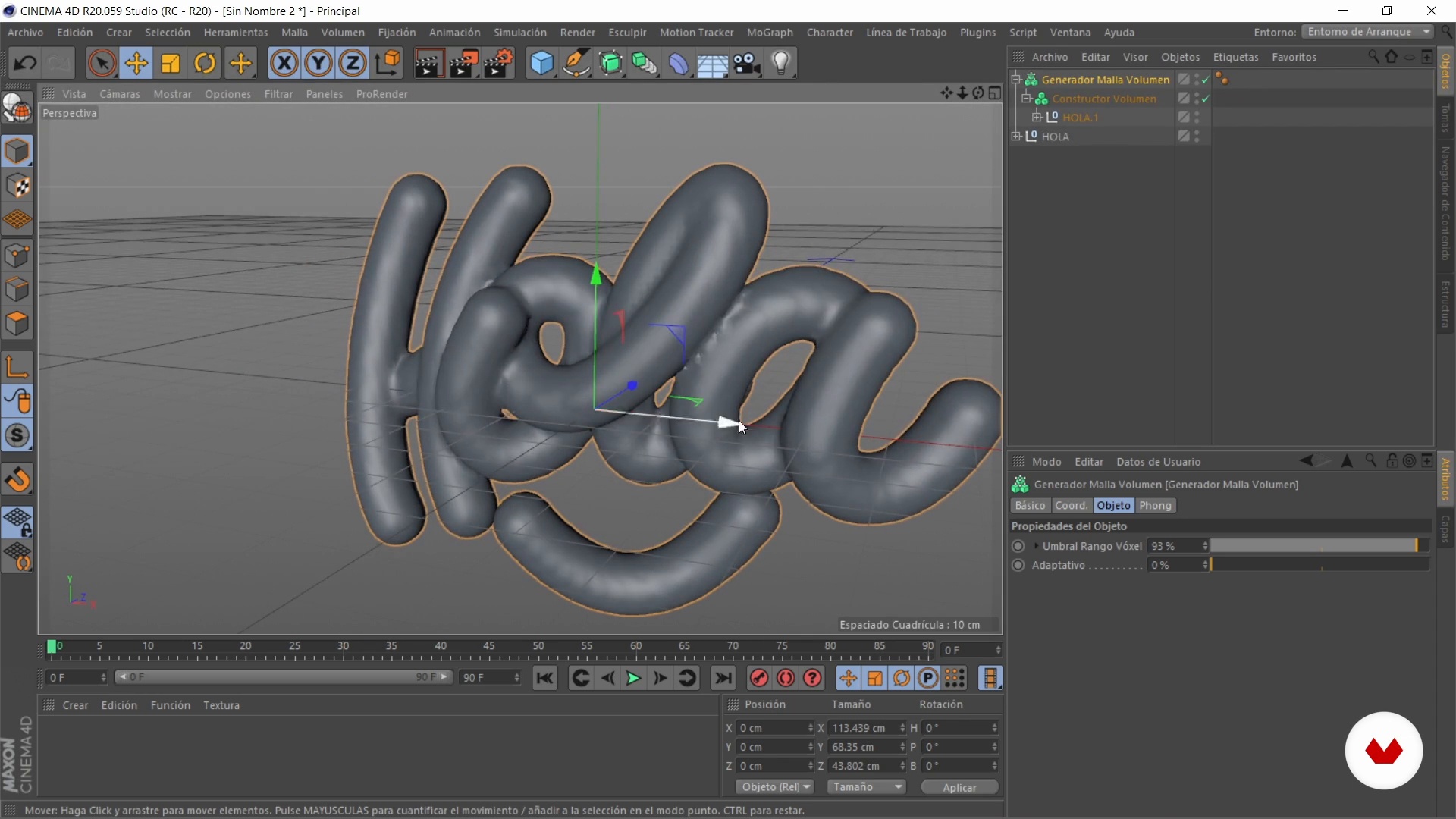
3D Font Design with a Metallic Finish
Lettering modeling with liquid finish 2
About the video: Lettering modeling with liquid finish 2
“Once the volume has been modeled, I will teach you how to give it personality and add undulations to create the uneven effect on the surface. Then I will apply color and teach you how to modify the materials. ”
In this video lesson Dawlym Murillo Jaramillo addresses the topic: Lettering modeling with liquid finish 2 , which is part of the Domestika online course: 3D Font Design with a Metallic Finish. Learn three-dimensional modeling techniques in Cinema 4D to add a realistic and vibrant touch to your lettering.
“To create that cover that covers our word and generates that effect viscous and that liquid effect we have two ways to do it, but it will depend of the version of Cinema 4D that you have installed. If you have version R20 From now on we can do it with the volume constructor and the volume generator. volume mesh that work together, but if you have a version prior to R20 you will not Don't worry, you can do it with the Metaball and the effect is very similar. so i love you teach how to do it with the Metaball and how to do it also with the volume builder, so let's see it. Well first of all le...”